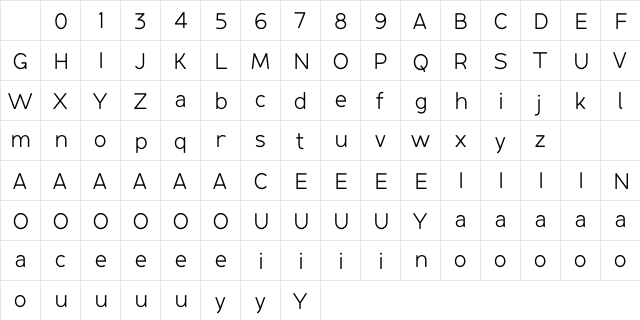
Lite On is a composed and adaptable typeface that performs quietly and consistently across a wide range of design contexts.
Pro Tip: Use Lite On in both headline and body roles to test its range before committing to a single application.